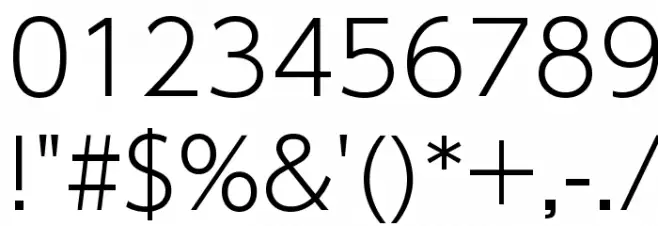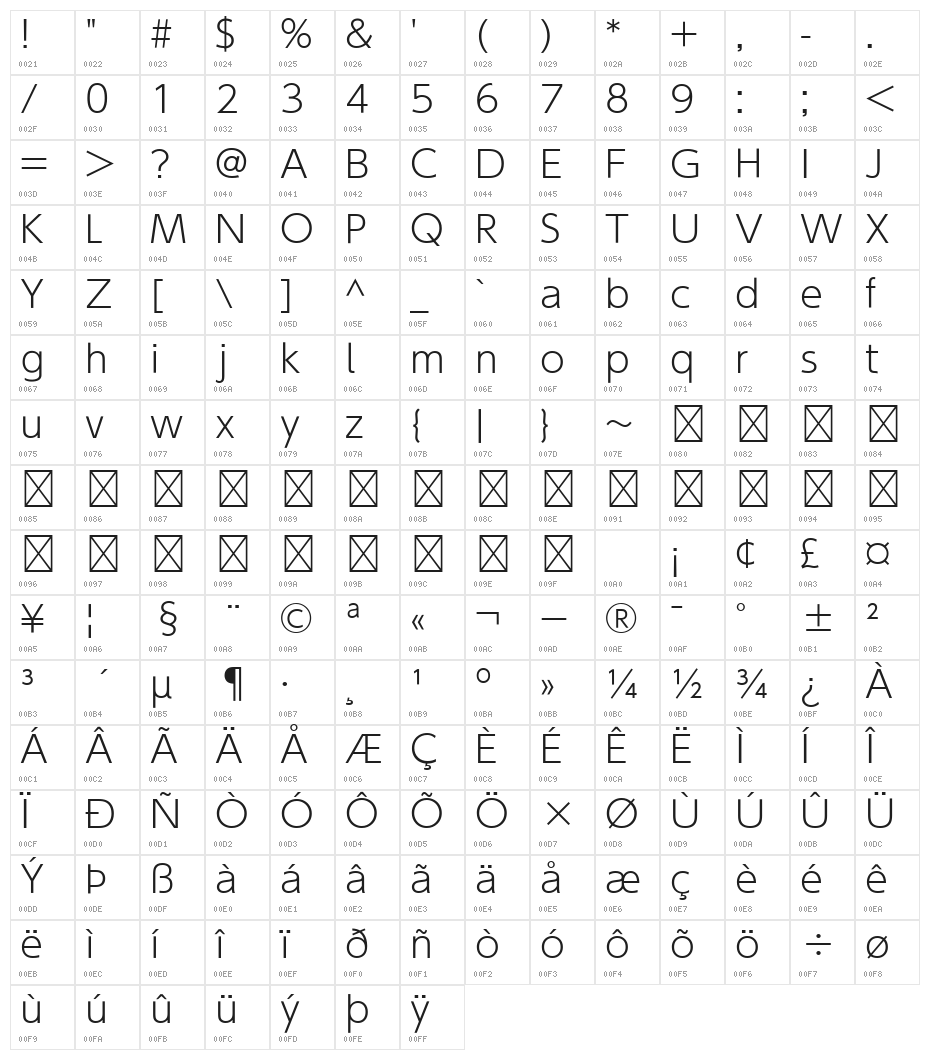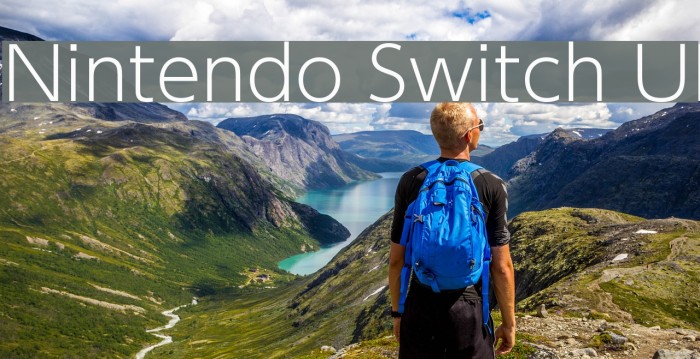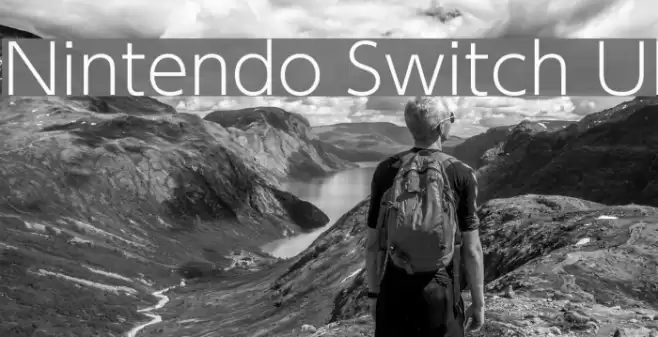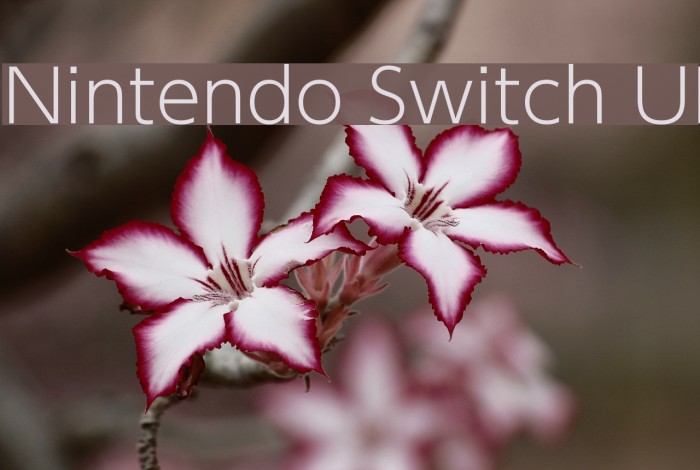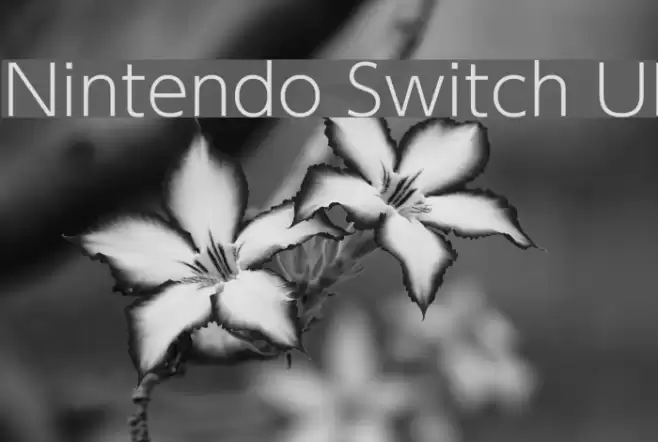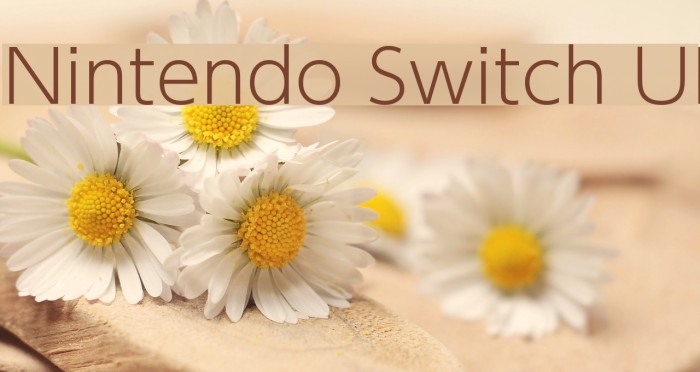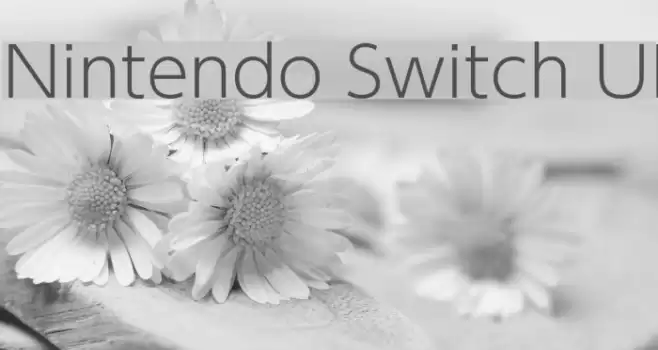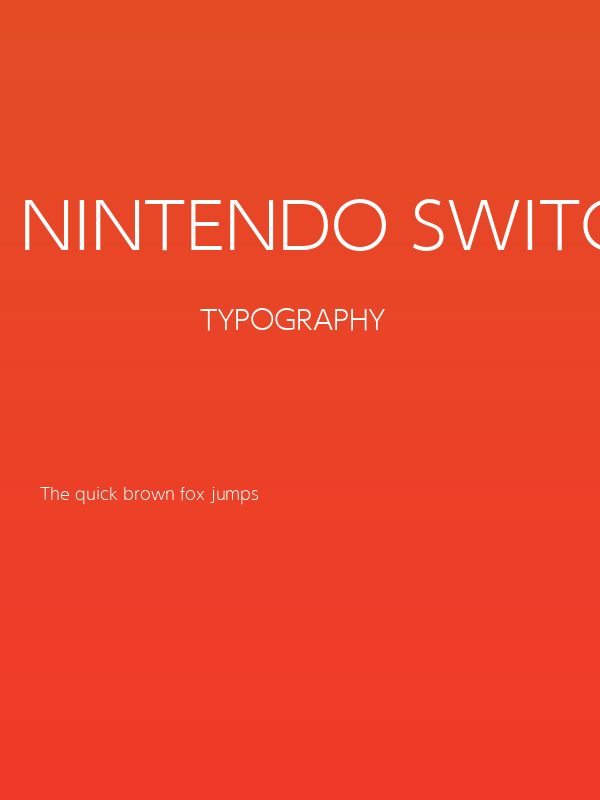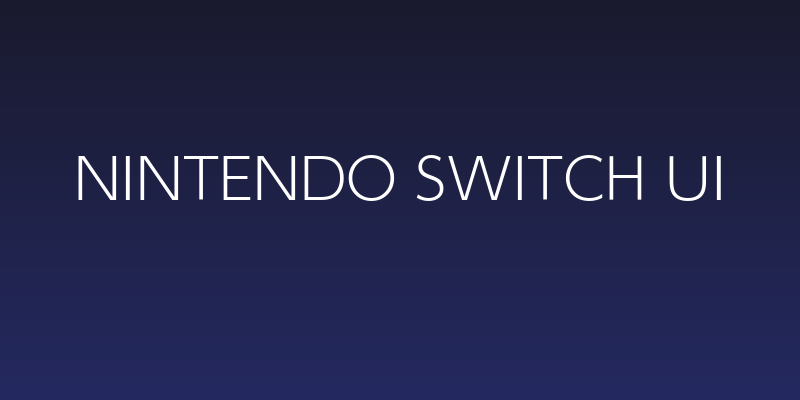
Nintendo Switch UI Font
Nintendo Switch UI Description
This font features a clean and modern sans-serif design with a geometric structure. The characters are well-balanced with a consistent stroke width, providing a harmonious and legible appearance. The uppercase letters are bold and assertive, while the lowercase letters maintain a friendly and approachable style. The numerals are clear and easy to read, making them suitable for digital interfaces. Special characters are designed to complement the overall aesthetic, ensuring versatility across various applications. The font's simplicity and clarity make it ideal for user interfaces, branding, and digital content.
| Use Case | Headlines, Body text, User Interfaces |
| Proposed Projects | Ideal for digital interfaces, branding, app design, and web content. |